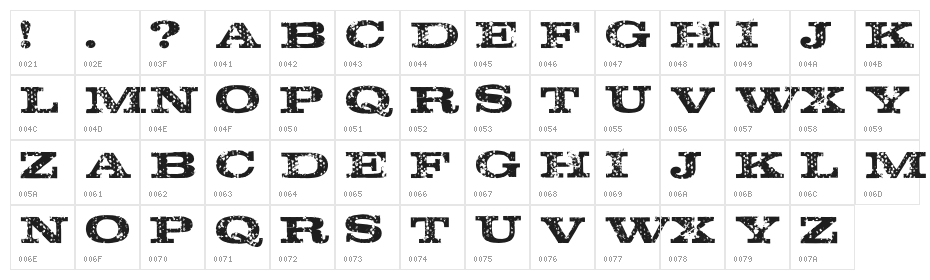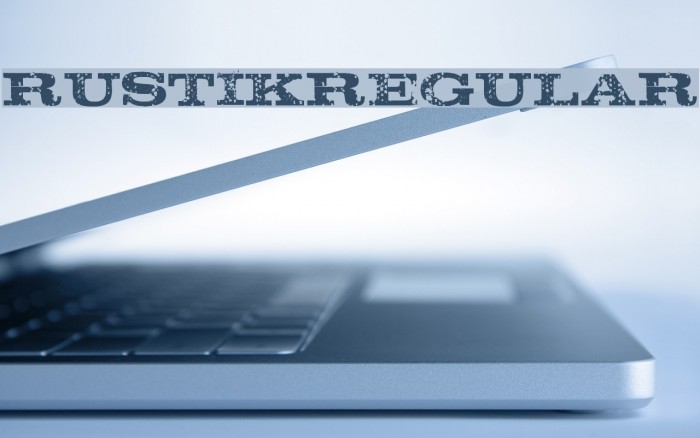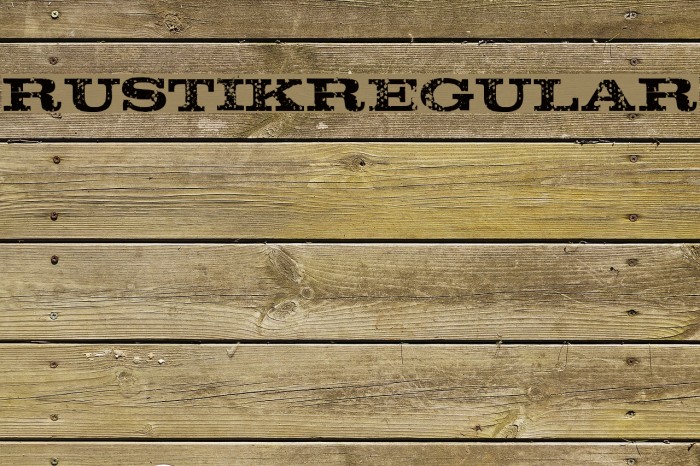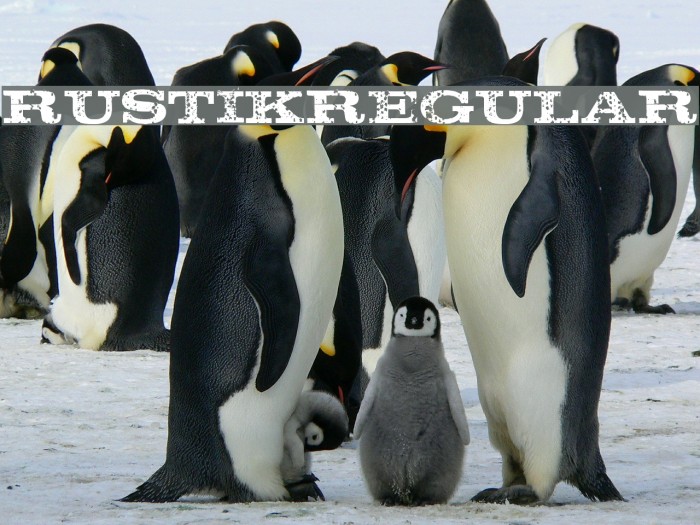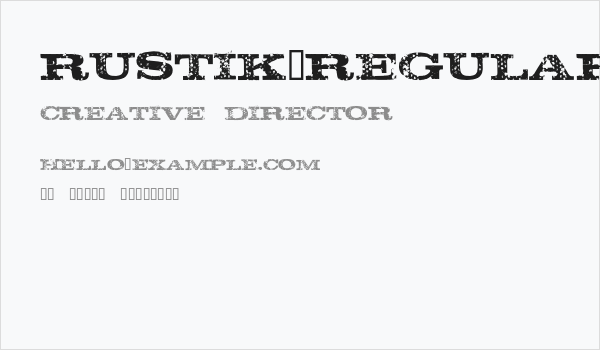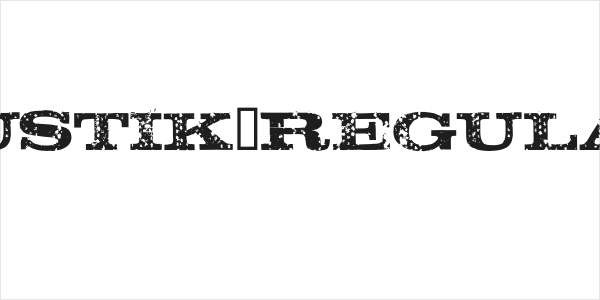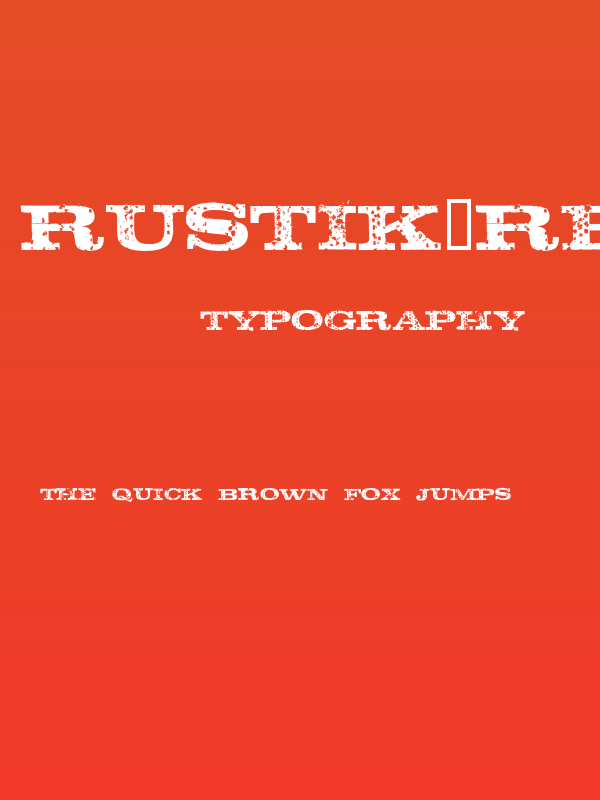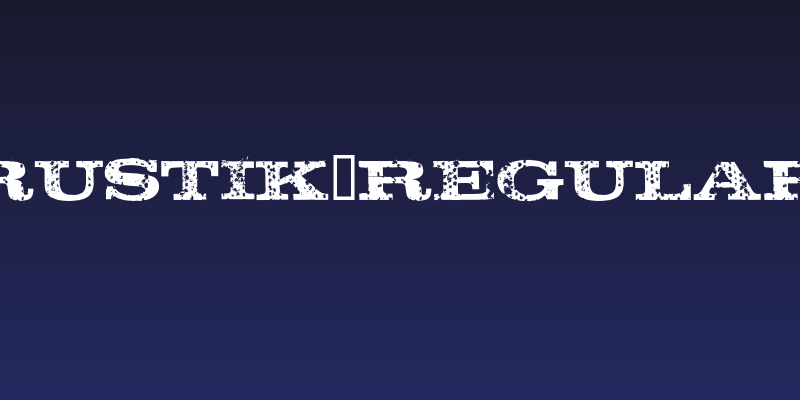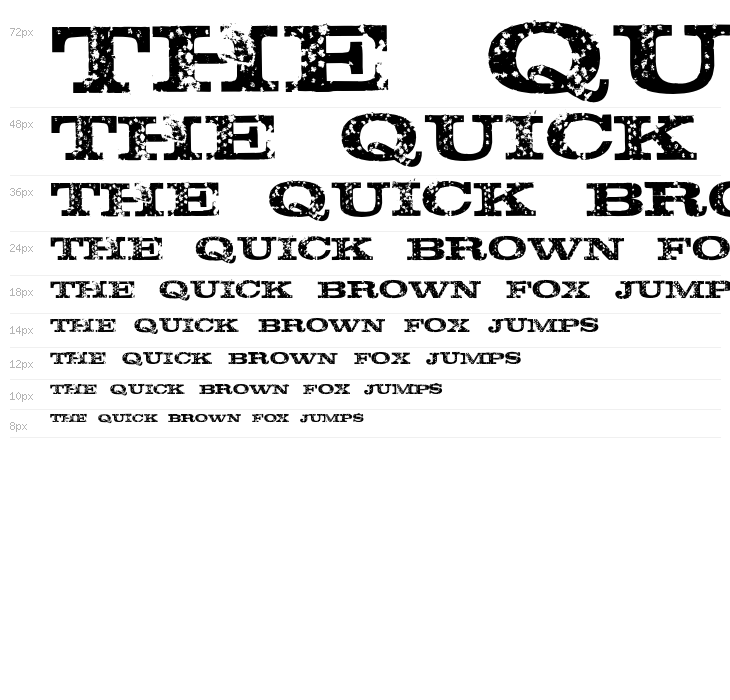
Rustik-Regular Font
Rustik-Regular Description
This font features a distressed, textured appearance that gives it a rugged and vintage feel. The uppercase letters are bold and impactful, with a rough, weathered look that suggests a sense of history and character. The font maintains a consistent weight throughout, with each letter displaying unique imperfections that add to its charm. The spacing between characters is normal, allowing for readability while maintaining its distinctive style. This font is ideal for projects that require a touch of nostalgia or a rustic aesthetic.
| Overall Style | Vintage |
| Use Case | Logos, Headlines, Posters |
| Proposed Projects | Perfect for branding, posters, and designs that require a vintage or rustic touch. |